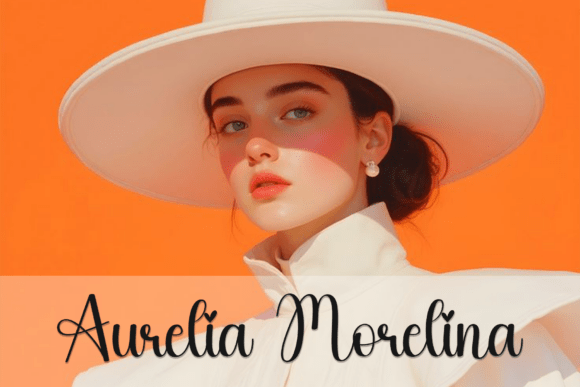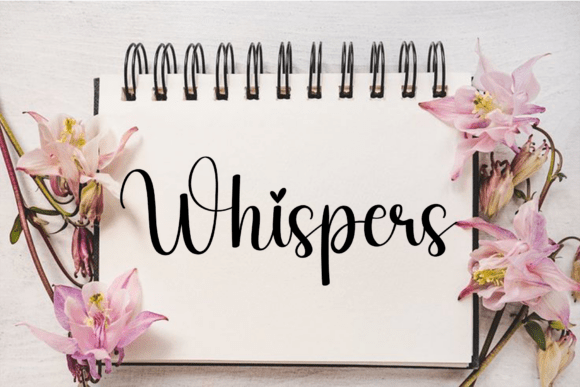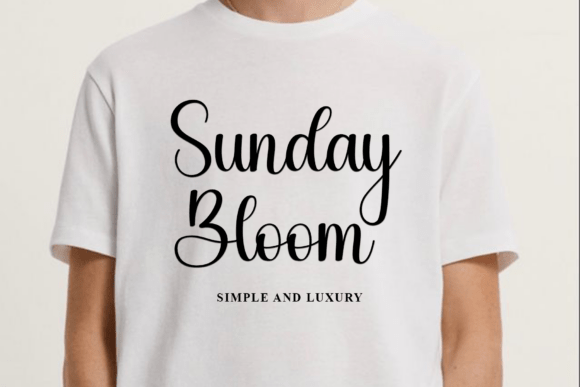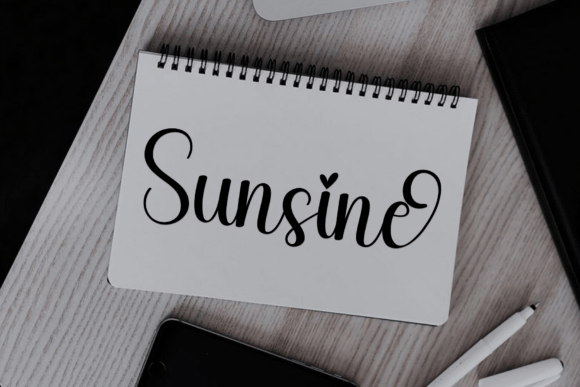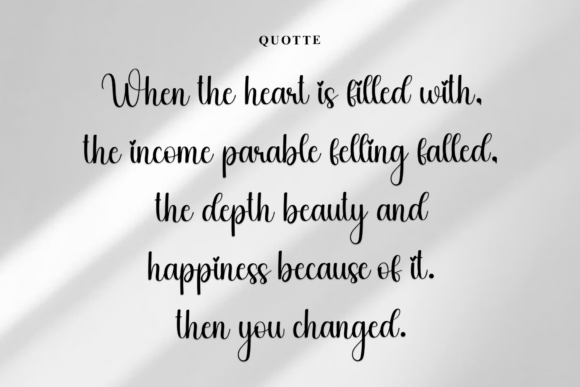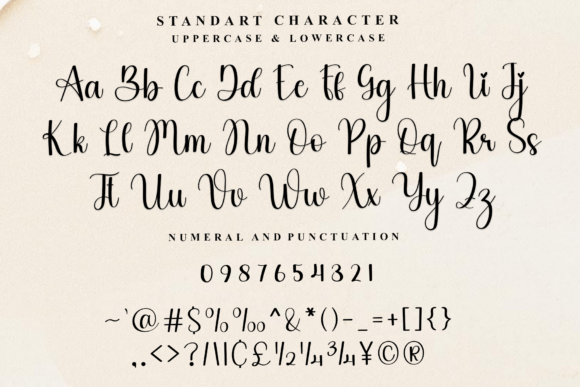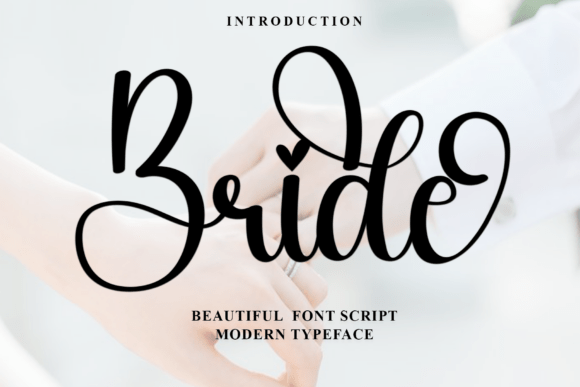
The Magic of Bride Font: Elevating Your Holiday Designs
It’s that time of the year again – the holiday season is just around the corner, and as designers, crafters, and creative hobbyists, we’re on the lookout for that perfect font to make our projects shine. I still remember the year I spent hours scouring font libraries for the ideal typeface for a client’s Christmas card project. The brief was simple: create a festive and merry design that captured the spirit of the season. That’s when I stumbled upon Bride Font, and it instantly became my go-to for holiday designs.
A Festive Favorite: My Honest Review of Bride Font
Bride Font has been a game-changer for my holiday projects, and I’m excited to share my honest review with you. Here’s what I love about it:
• ✨ Festive and merry vibe that’s perfect for the holiday season
• ✅ Decorative elements and whimsical flair that add a touch of enchantment to designs
• 💫 PUA encoded, making it easy to access all the amazing glyphs and ligatures
• 🎉 Versatile and suitable for various projects, including greeting cards, gift tags, and holiday-themed designs
While Bride Font is a stunning typeface, it’s not without its quirks. Here are a few things to keep in mind:
• ⚠️ Some users may find the font a bit too ornate for certain projects
• 🤔 Limited use outside of holiday-themed designs, as the font’s festive feel might not be suitable for other types of projects
The Story Behind Bride Font: Designer Inspiration
Bride Font was inspired by the magic and wonder of the holiday season. Its designer aimed to create a typeface that captured the festive and merry spirit of Christmas, with decorative elements and whimsical flair. The result is a font that’s perfect for adding a touch of enchantment to your holiday designs.
What is Bride Font? Bride Font is a festive and merry typeface designed specifically for holiday-themed projects.
Is Bride Font PUA encoded? Yes, Bride Font is PUA encoded, making it easy to access all the amazing glyphs and ligatures.